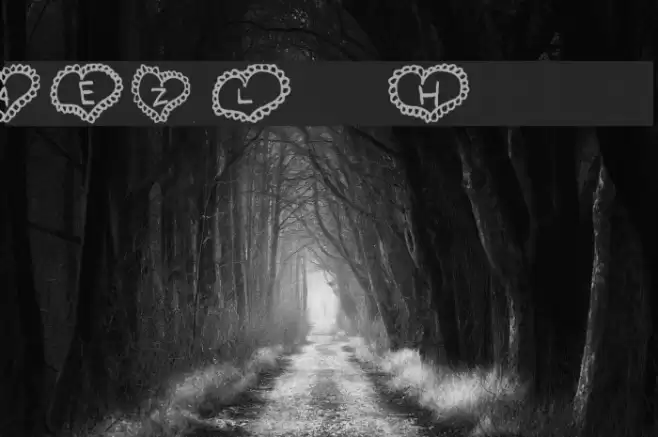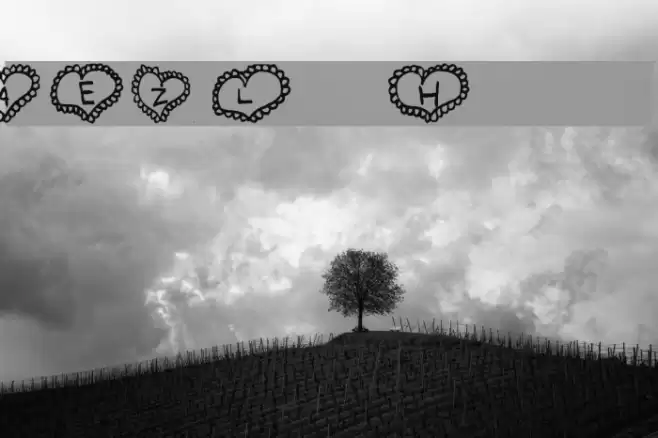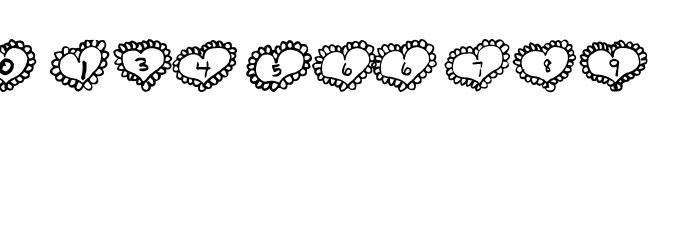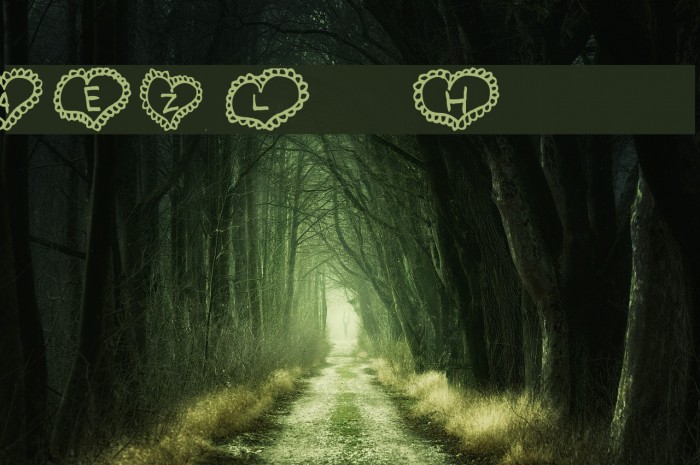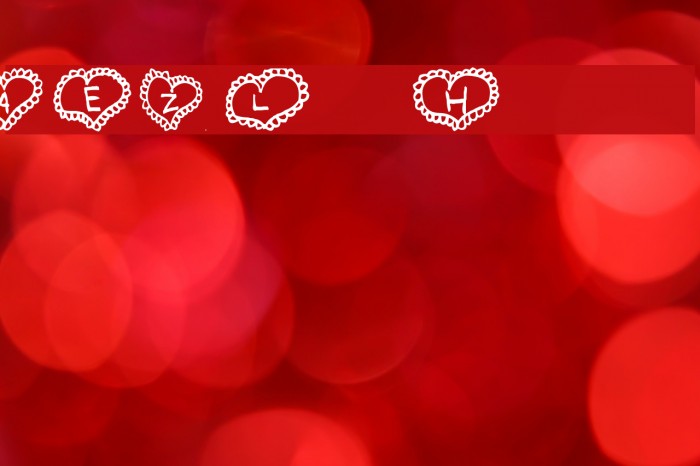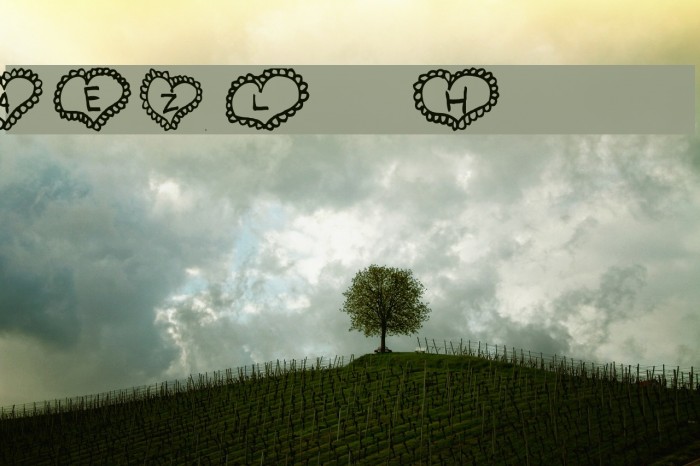
AEZ Lacy Hearts Font
AEZ Lacy Hearts Description
This whimsical and decorative font features each character encased within a heart shape, adorned with a lace-like border. The letters and numbers are simple and bold, providing a playful contrast to the intricate heart outlines. This font exudes a romantic and charming vibe, making it ideal for projects that require a touch of elegance and fun. The heart motif is consistent across all characters, creating a cohesive and visually appealing design. The font's unique style is perfect for creative and lighthearted applications.
A decorative font with characters inside lace-bordered hearts, offering a playful and romantic style from Uncategorized fonts.
- Proposed Projects: Ideal for Valentine's Day cards, wedding invitations, love-themed posters, and playful branding projects.
- Use Case: Logos, Headlines, Greeting Cards